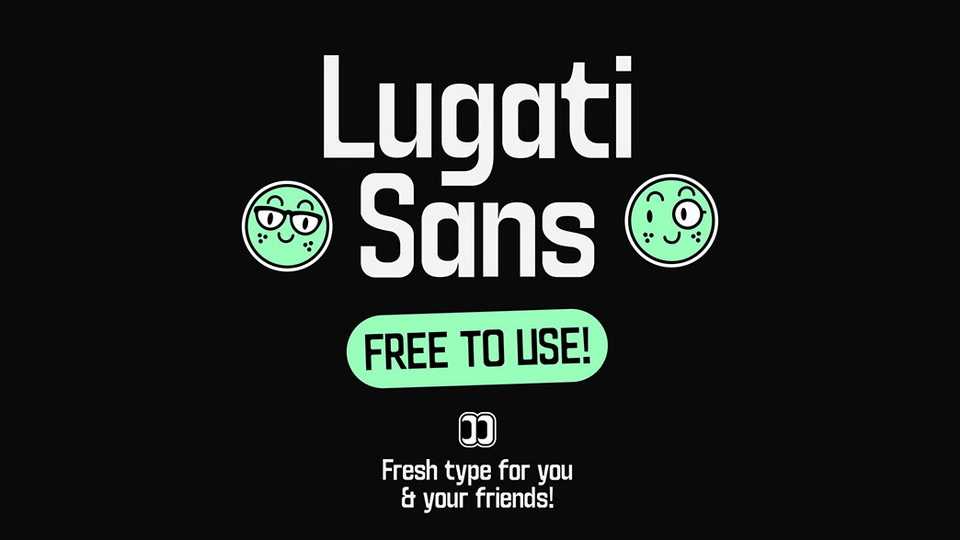
Download Lugati Sans font, a post modern typeface inspired from the vintage era of printing houses in the region. It is an interesting specimen with some glyphs being more diverse than the others, making Lugati Sans a somewhat contemporary piece.
Designer: Leonit Gashi